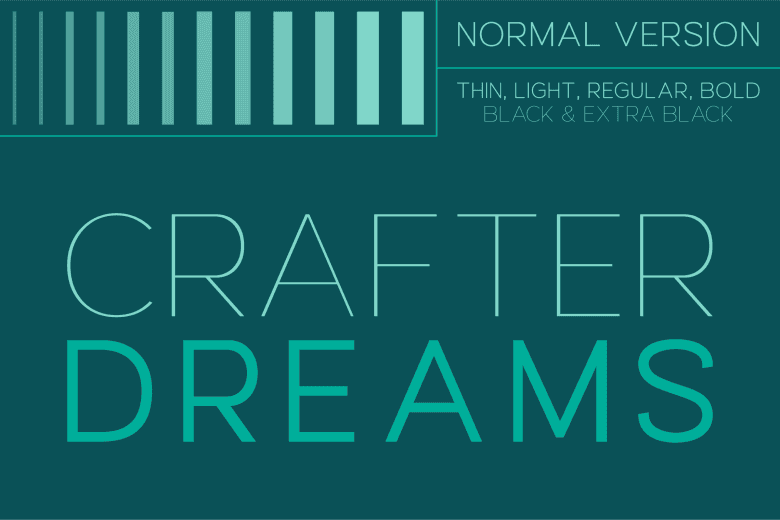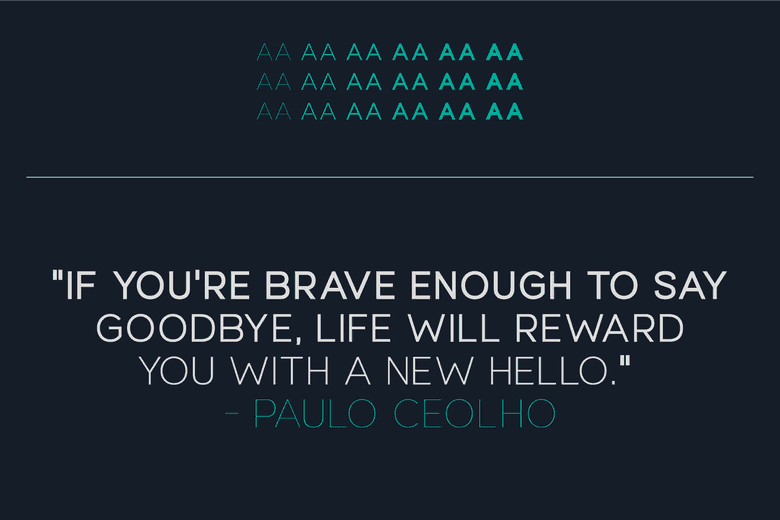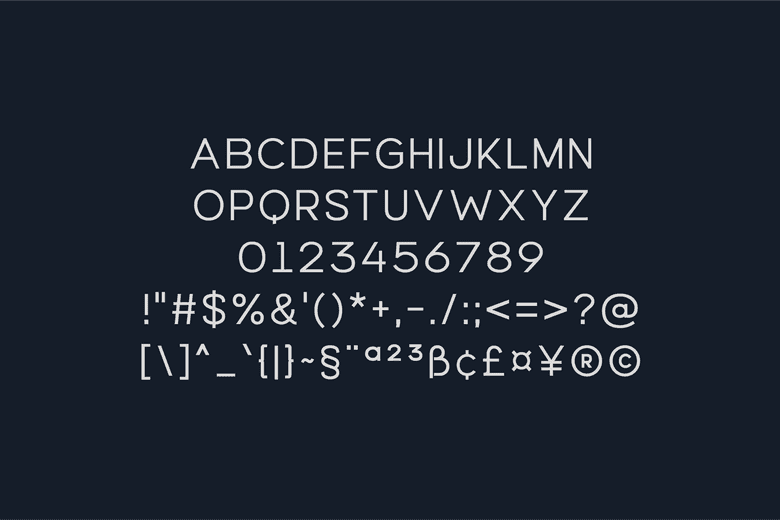
“Crafter Dreams”, our elegant font family, embodies minimalistic and elegant qualities in equal measure. Comprising six weights this sans serif font collection seamlessly merges modernity and elegance. Crafted to the highest precision standards, “Crafter Dreams” enhances any design project – be it logo design for magazines or film posters.